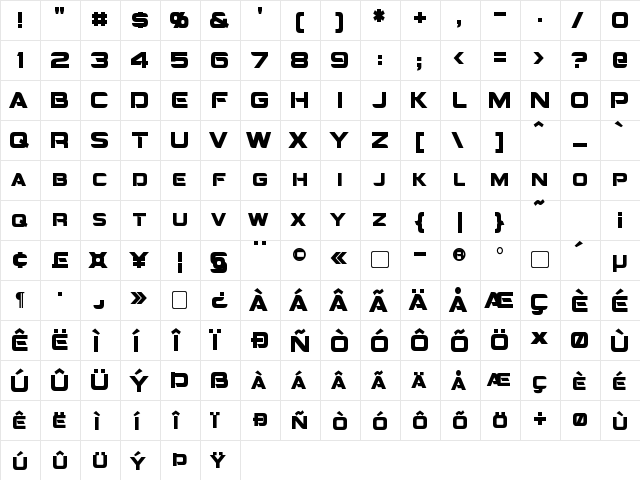
Montalban Condensed Bold Font Preview
| Foundry | Neale Davidson |
| Designer | Neale Davidson |
Design Context for Montalban Condensed Typeface
Montalban Condensed takes a measured approach to typography — its balanced proportions and neutral character make it a reliable workhorse for both digital and print work. Its bold stroke weight gives it real presence on the page. The condensed width makes it efficient for tight spaces without sacrificing legibility.